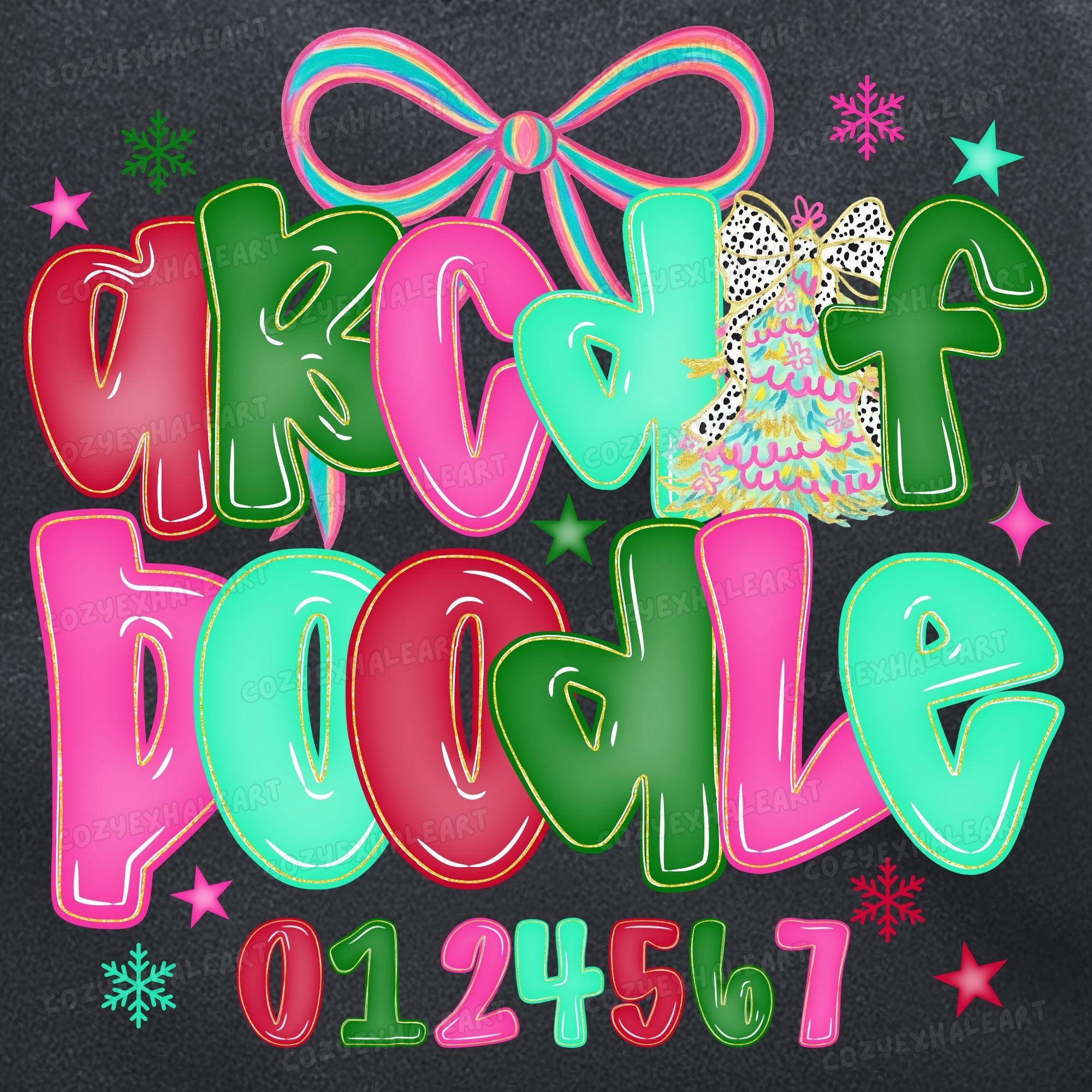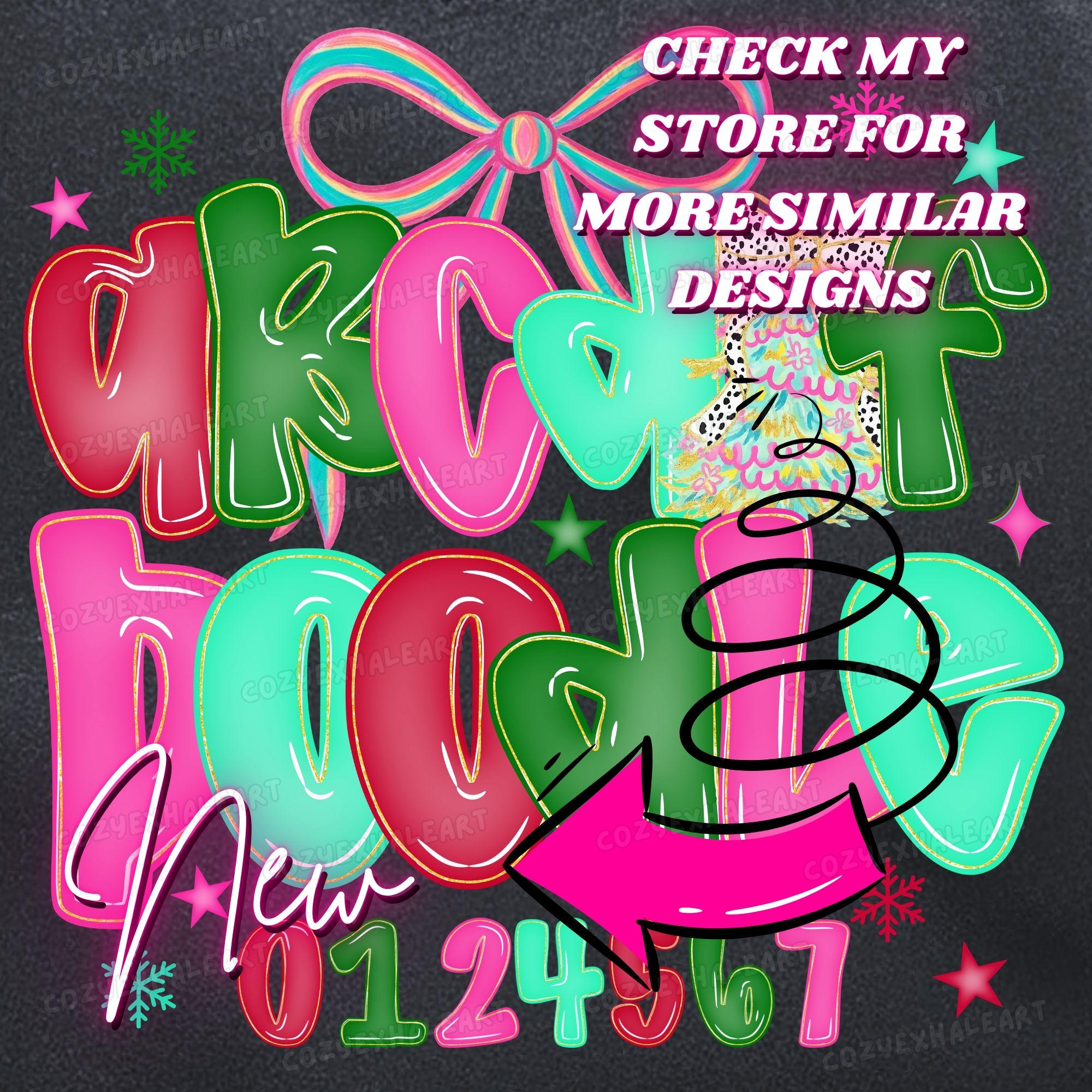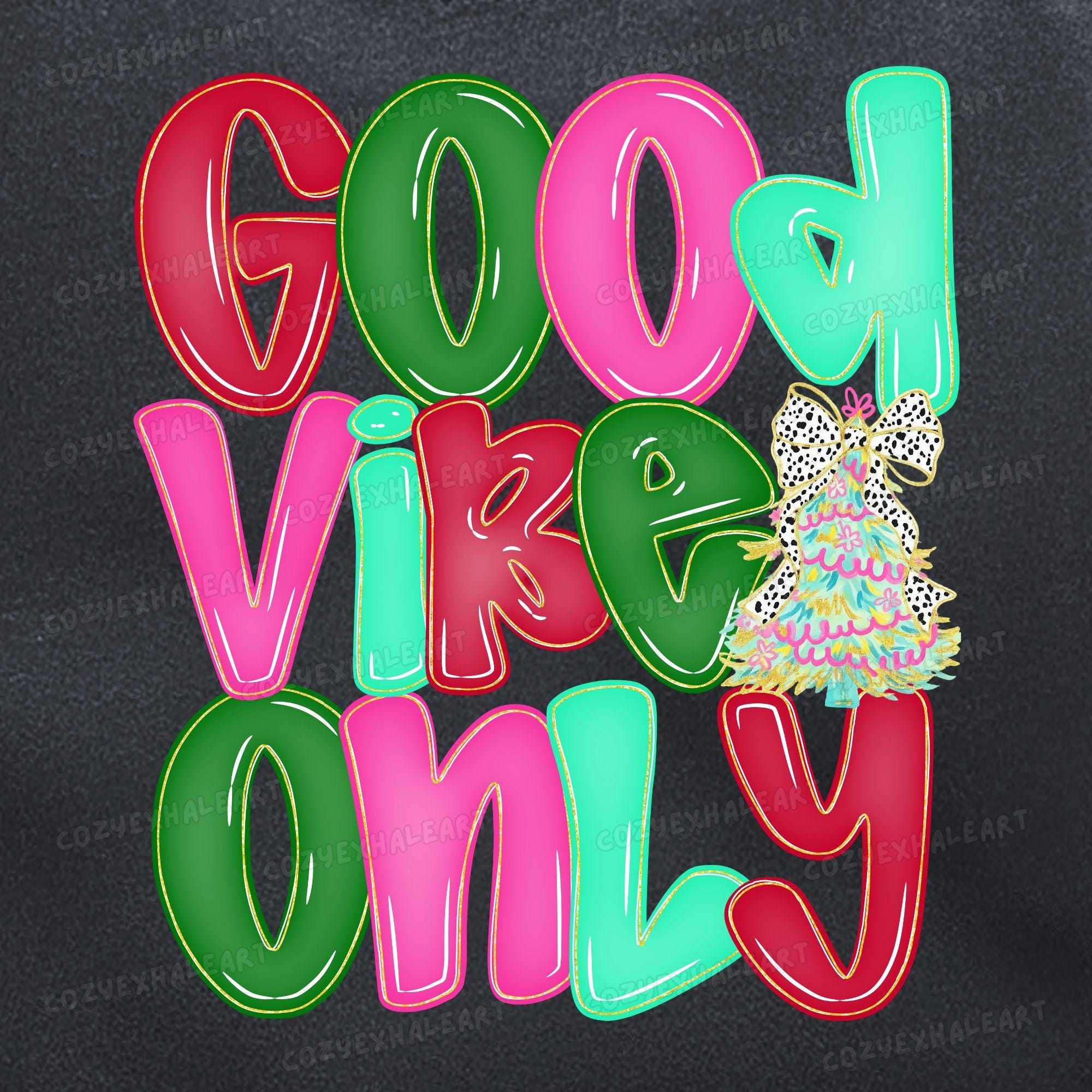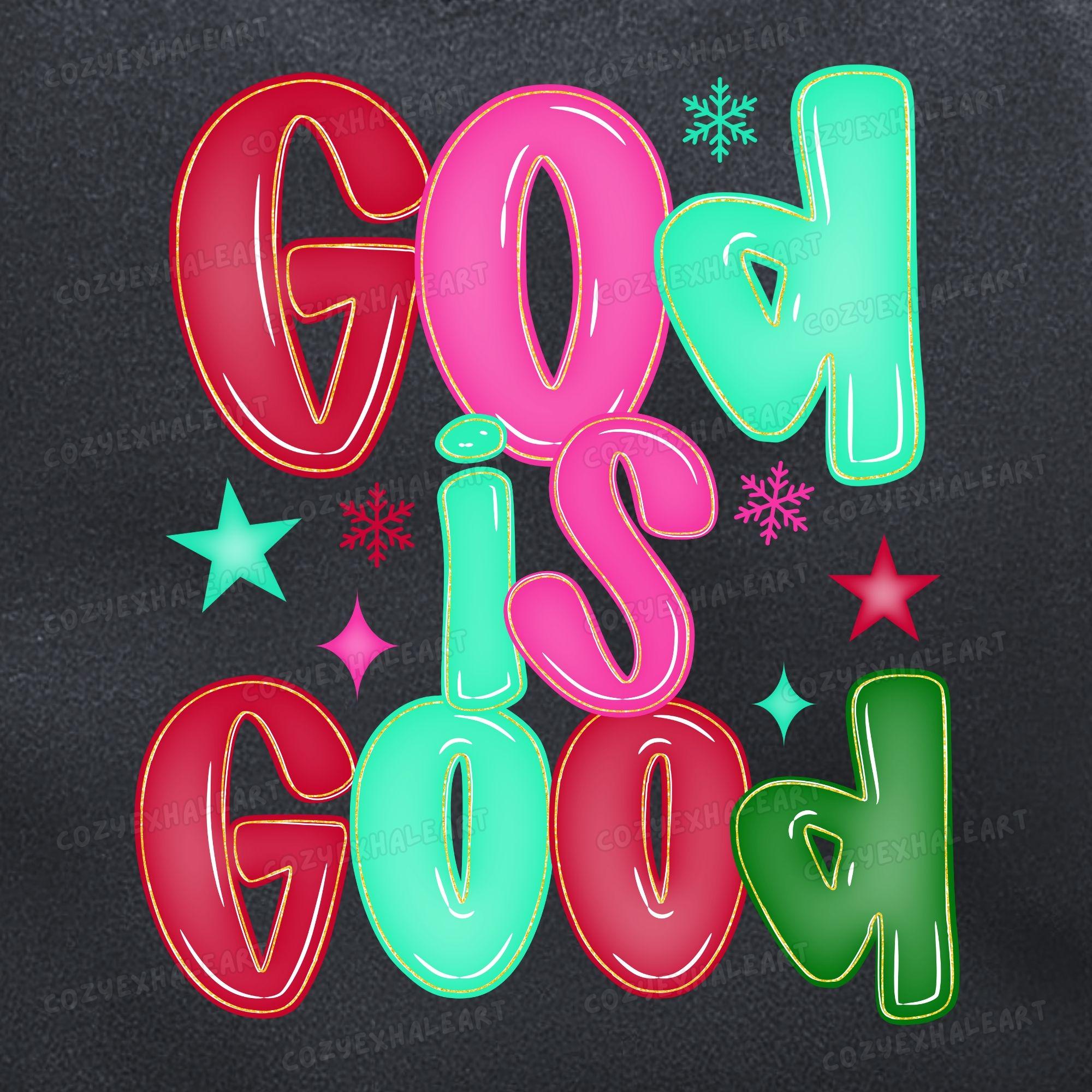
Christmas Doodle Alphabet PNG – Cute Pastel Letters and Numbers for Holiday Sublimation, Kawaii Clipart Font for Kids Tags, Crafts, Download
Make the season extra sweet with this Christmas Doodle Alphabet PNG Bundle — a playful, pastel collection of hand-drawn letters and numbers perfect for holiday tags, sublimation shirts, classroom crafts, or kawaii decor.
Each character is filled with festive flair, blending whimsical doodles with soft colors that kids and crafters will adore. Ideal for Christmas gifts, Santa sacks, ornaments, or printable games, this font set is pure holiday fun.
🎁 Perfect For:
• Custom kids' name tags and stockings
• Christmas party printables and signs
• Kawaii-style sublimation and crafting
• A–Z pastel holiday letters
• 0–9 matching numbers
🌟 Highlights:
• Kid-friendly, kawaii-inspired look
• Adds joyful personality to any festive project